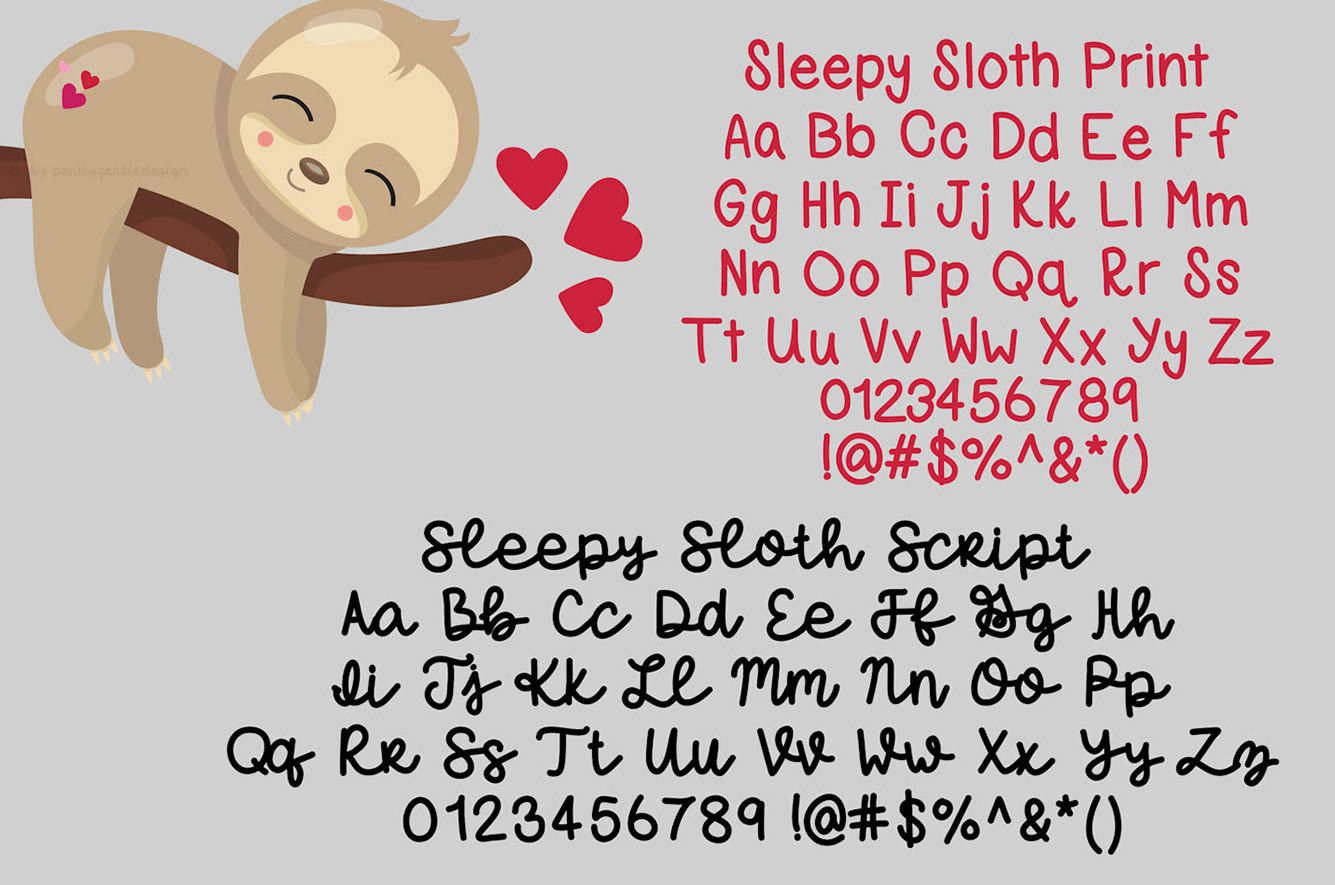
Elizabeth Mueller
Aka Nichole Andrew. Harmony, MD-based designer of the monoline children's book fonts Fish Face (2019), Cow Pies (2019), Sleep Sloth (2019), Penguin Poop (2019), and Lollipop Stomp (2019).